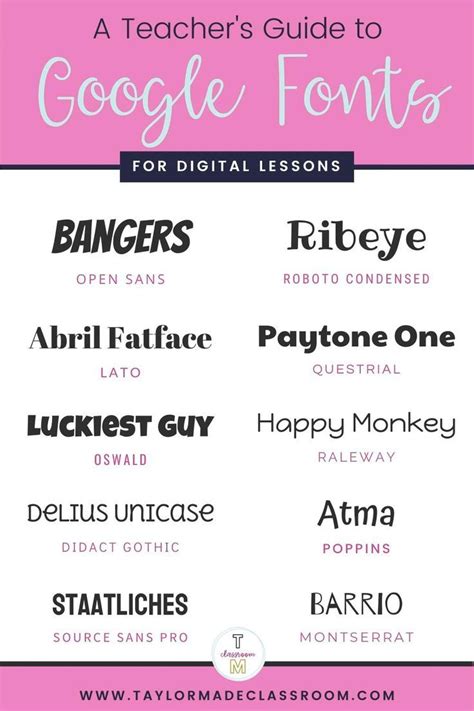
Get Creative with Your Presentations: Top 10 Fun Fonts for Google Slides That Will Make Your Audience Say Wow!
The use of captivating and fun fonts can make a huge difference in your presentations. They can add a touch of humor, creativity, and visual appeal that will capture your audience's attention, and keep them engaged throughout your presentation.
Are you tired of using the same old fonts in your presentations? Do you want to add some fun and excitement to your Google Slides? Look no further than our list of the top 10 fun fonts that will make your audience say wow!
Fonts can convey meaning, set the tone of your presentation, and help you emphasize key points. With so many options available, it can be overwhelming to choose the right font. But don't worry, we've got you covered.
From playful to bold, these fonts will take your Google Slides from bland to grand:
- Lobster - This fun and lively font is perfect for titles and headers that need a bit of flair.
- Bangers - Bold, blocky and perfect for catching your audience's attention right away.
- Chewy - Friendly and rounded, this font brings a playful vibe that is sure to charm your audience.
- Kalam - Elegant yet playful, Kalam is perfect for modern and sophisticated presentations.
- Fredoka One - Bold and unique, this font adds some edge and personality to any presentation.
- Amatic SC - This handwritten-style font exudes warmth and approachability, making it a great choice for educational or personal presentations.
- Orbitron - Perfect for more technical or futuristic presentations, Orbitron adds a modern touch that's hard to ignore.
- Carter One - Inspired by vintage typography, Carter One provides a sense of nostalgia and retro charm.
- Montserrat - Clean, modern and versatile, Montserrat is easy on the eyes and perfect for business presentations.
- Cinzel Decorative - For a touch of drama and grandeur, try Cinzel Decorative. Perfect for titles and headings that require a more formal tone.
With these fun and engaging fonts, your Google Slides will go from ordinary to extraordinary in no time.
So, next time you create a presentation, think outside of the box and give one of these fun fonts a try. You and your audience will be glad you did.
Presentations play a crucial role in delivering information widely to people. Therefore, it is essential to make presentations attractive and stand out to impress the audience. Fonts are one of the most significant elements that can bring life to your presentation. Here we have compiled a list of top 10 fun fonts for Google slides to make your audience say wow!
Top 10 Fun Fonts for Google Slides
1. Comic Sans MS
Comic Sans MS is probably the most popular font style among presenters. The casual and easy-to-read font makes it ideal for presenting humorous content.
| Unique and easy to read | Some people find it unprofessional |
| Casual and comfortable to the eyes | Overused and cliché |
2. Lobster Two
Lobster Two is a fancy font that adds some glamour to your presentation. The thick, curly lettering gives an elegant yet playful look.
| Glamorous and elegant | May not be suitable for formal presentations |
| Creative and unique | Font size must be adjusted to avoid clutter |
3. Impact
Impact is a heavy, bold font that creates a strong impact on the audience. It is ideal for highlighting key points and making a statement.
| Clear and easy to read | Not suitable for lengthy presentations |
| Makes a strong impression | May seem aggressive or overpowering |
4. Amatic SC
Amatic SC is a handwritten font that adds a personal touch to your presentation. The friendly and fun font style brings warmth and familiarity to the content.
| Handwritten and unique | May not be suitable for formal presentations |
| Warm and inviting | Size must be adjusted for readability |
5. Dancing Script
Dancing Script is a cursive font that evokes a sense of creativity and artistic appeal to the presentation. The flowing letters create a smooth and graceful look.
| Creative and artistic | May be difficult to read for some people |
| Smooth and graceful | Not suitable for all types of presentations |
6. Oswald
Oswald is a modern, clean font that gives a professional look to your presentation. The bold and straight lines create a no-nonsense approach.
| Modern and clean | May look too formal for casual presentations |
| Professional and straightforward | Slightly limited in design versatility |
- How do I know which font to choose for my presentation? When choosing a font for your presentation, consider the tone and style you want to convey, as well as the readability and legibility of the font. It's also helpful to choose a font that complements your branding or overall design aesthetic.